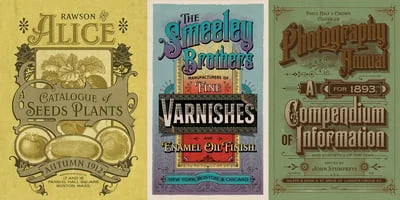
Ephemera Sickles Font
Ephemera Sickles Font is ideal for vintage design projects including antique collectors' materials, ephemera shops, historical document reproductions, vintage poster recreations, nostalgic advertising campaigns, retro collectibles packaging, memorabilia catalogs, and authentic heritage marketing. This distinctive typeface works perfectly for vintage paper dealers, historical societies, antique auction houses, collectors' galleries, and projects that celebrate the fleeting beauty of historical ephemera and collectible artifacts.
What makes Ephemera Sickles Font exciting is its authentic vintage character that perfectly captures the essence of historical printed materials and collectible ephemera. The font features weathered letterforms with period-appropriate distressing that reflects the natural aging and patina of vintage documents. Its nostalgic design elements embody the spirit of historical preservation and collecting culture, making it perfect for projects that need to convey authenticity, historical value, and connection to past eras. The carefully crafted vintage details create an atmosphere of historical discovery and collectible treasure hunting.
Ephemera Sickles Font comes in multiple family variations including aged, distressed, clean, and restored styles. Each weight maintains the distinctive vintage character while offering different levels of historical wear and ephemera authenticity. The font family includes antique alternates, vintage ligatures, and period variations that provide designers with comprehensive options for creating truly authentic and historically accurate typographic compositions that honor collectible heritage.
Whether you're designing vintage branding, creating historical marketing materials, or developing nostalgic promotional graphics, Ephemera Sickles Font provides the perfect typographic time capsule for projects that celebrate historical preservation and ephemera collecting. This remarkable typeface transforms ordinary text into compelling expressions of vintage authenticity and historical charm. Download this treasured font today and preserve your design projects with the authentic character and historical significance that captures the fleeting beauty of ephemeral artifacts and vintage collectibles.